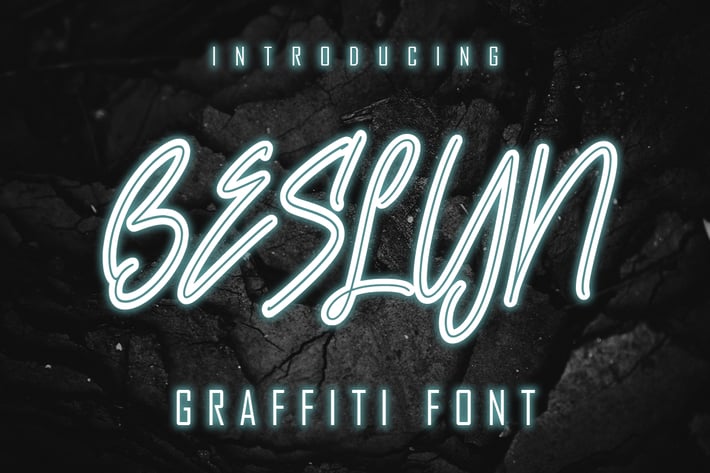
Beslyn - Graffiti Font
Beslyn is a Graffiti type font combined with a rapi so it looks elegant, suitable to support a variety of designs and your business